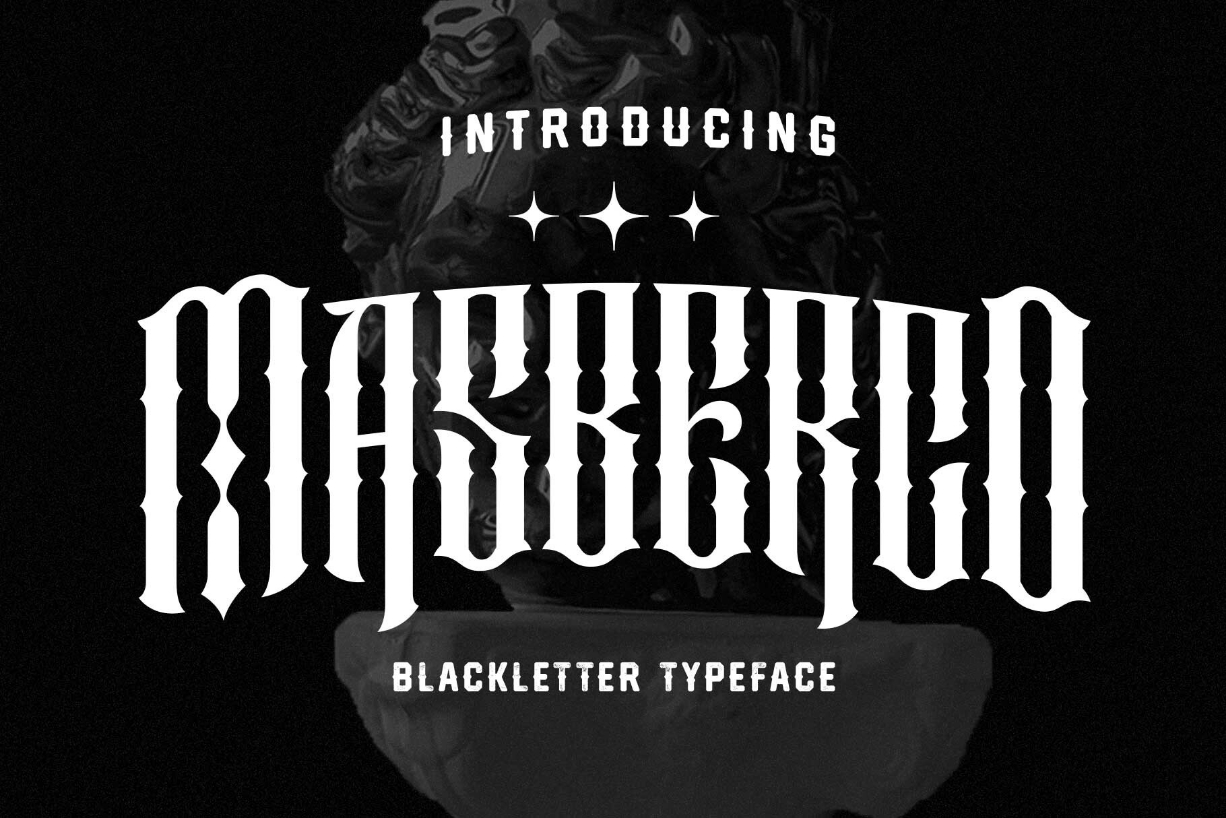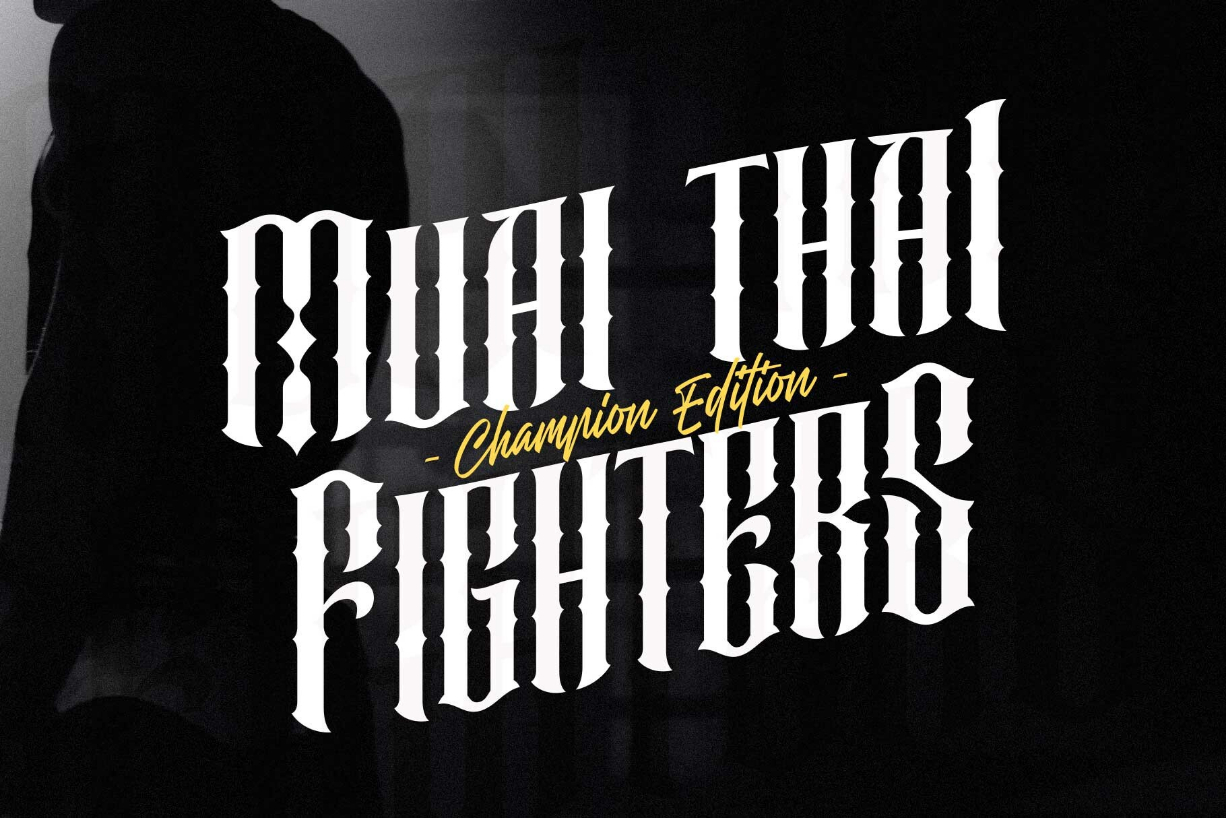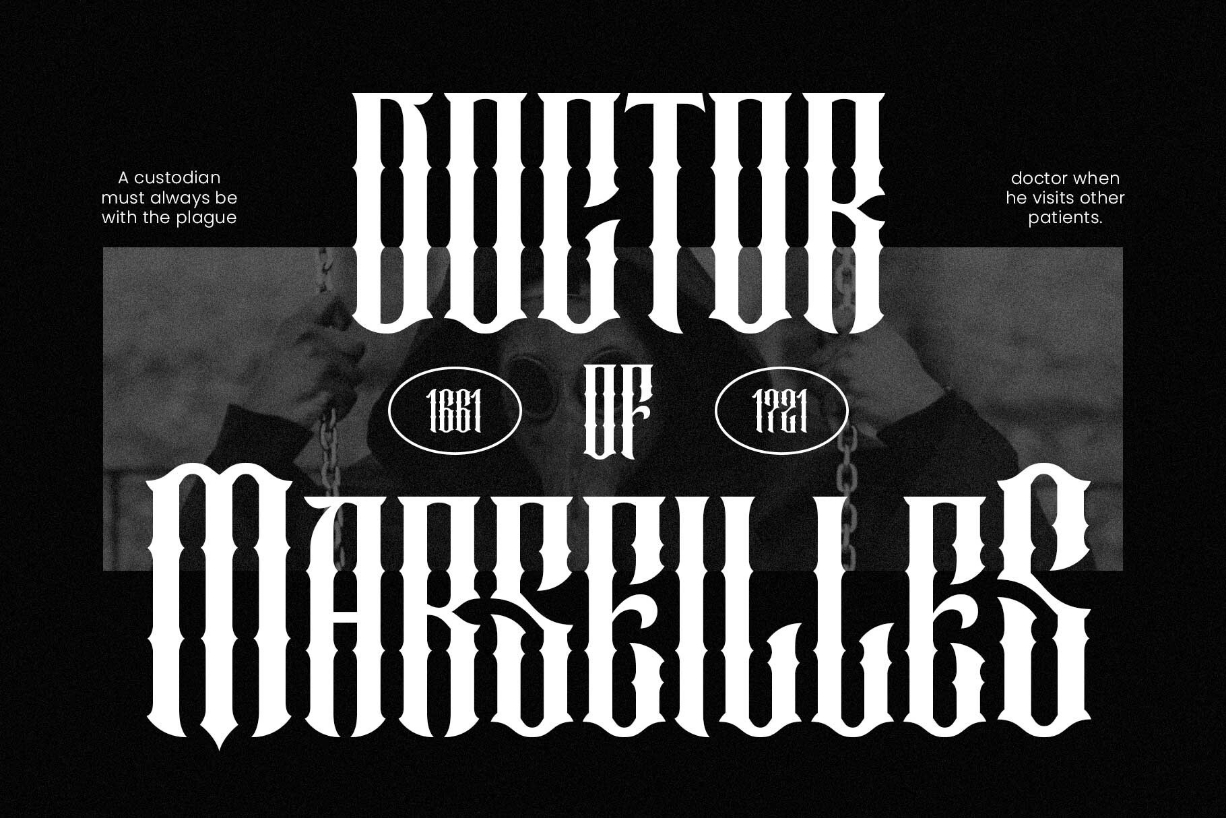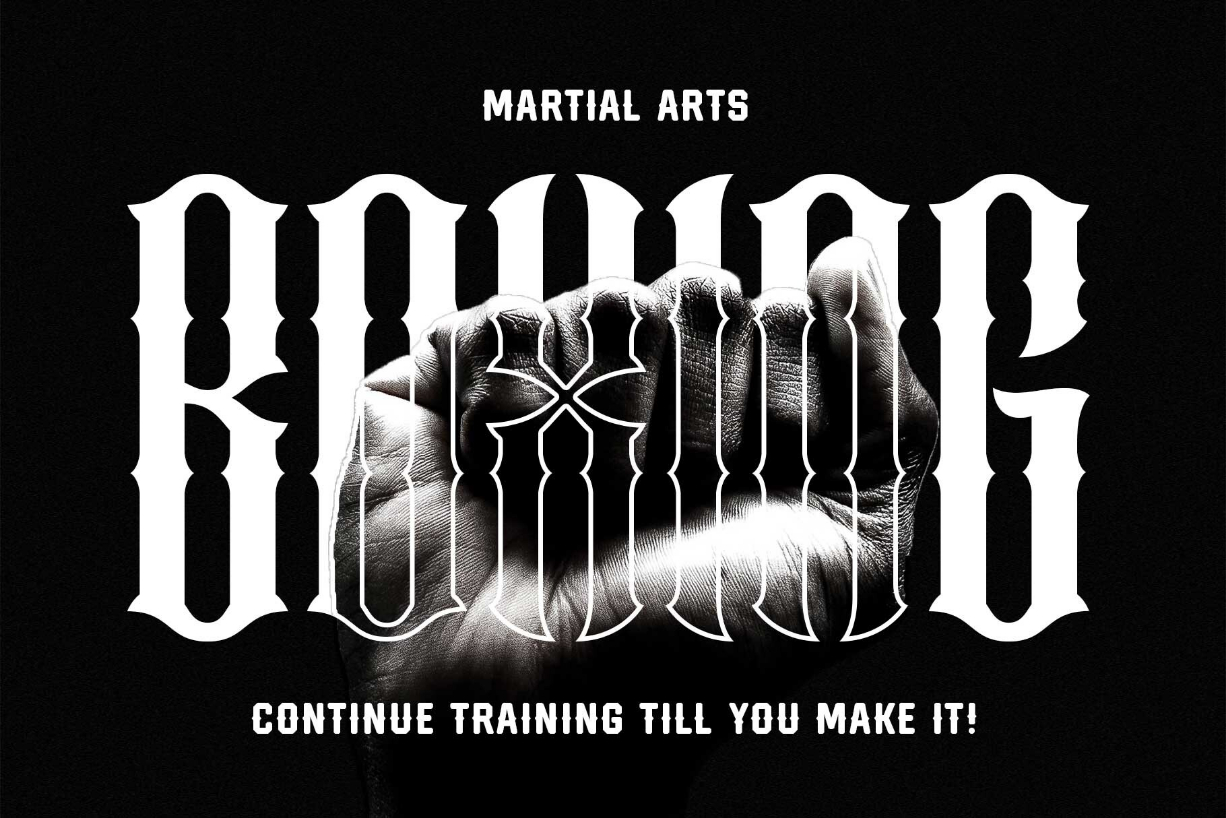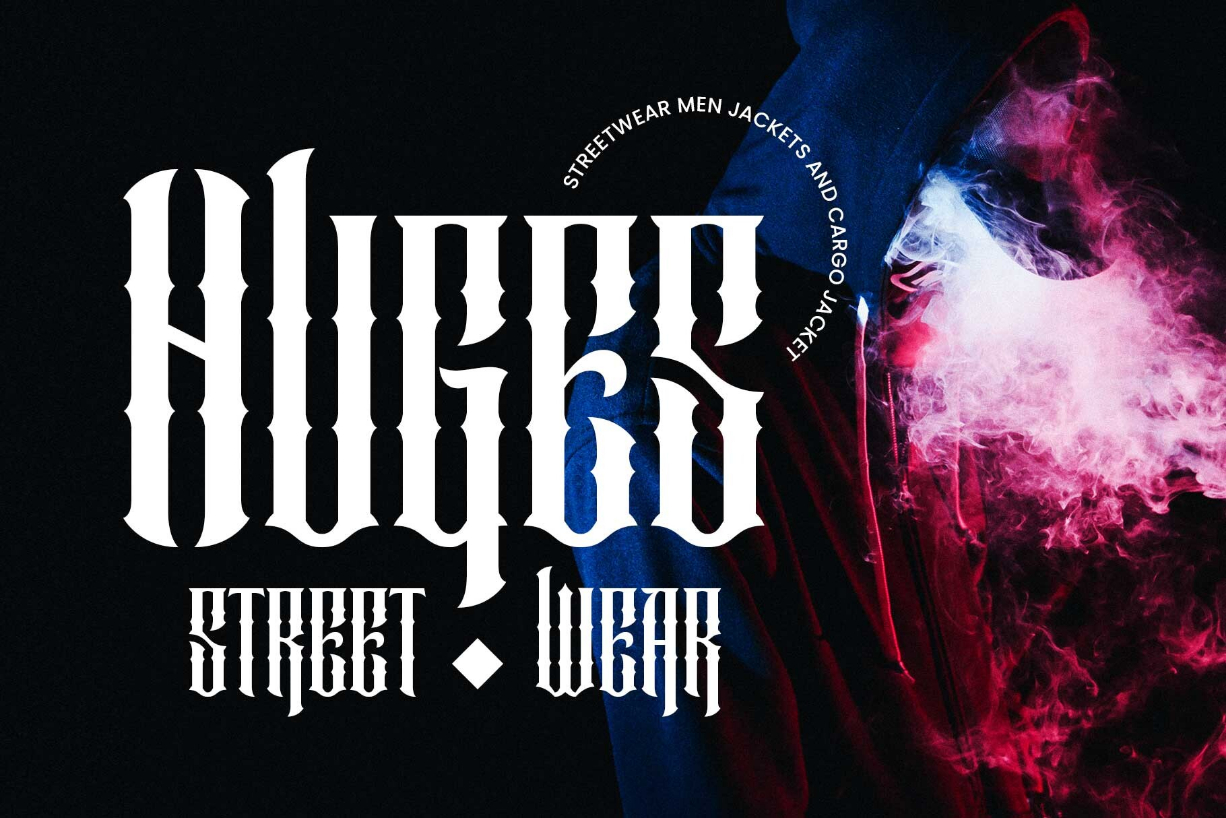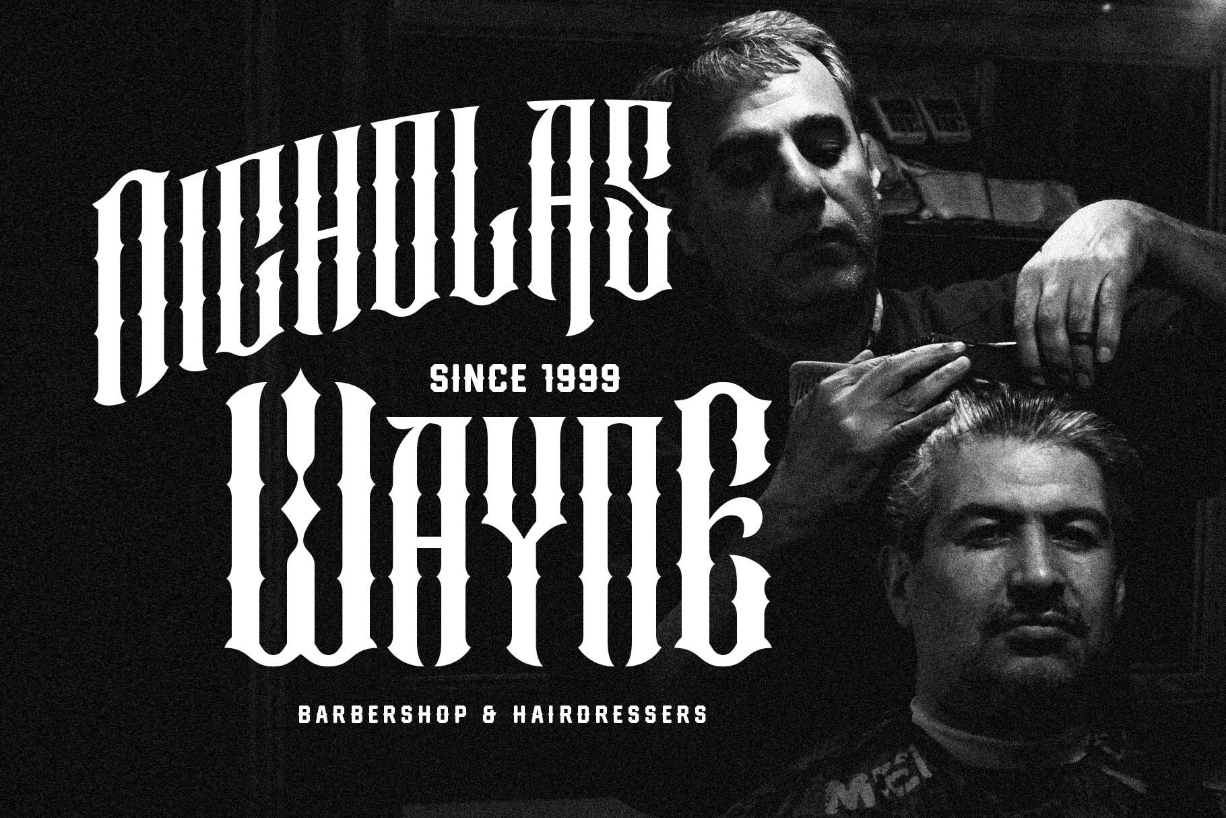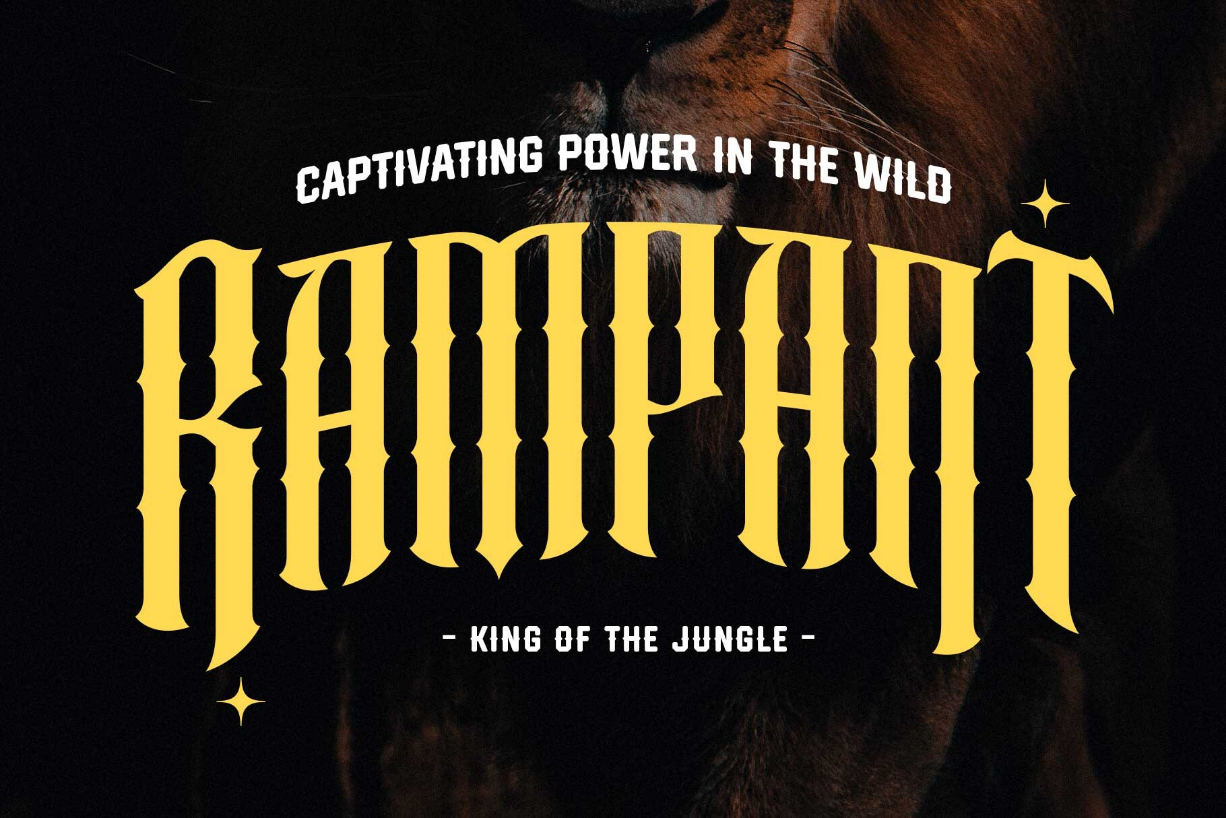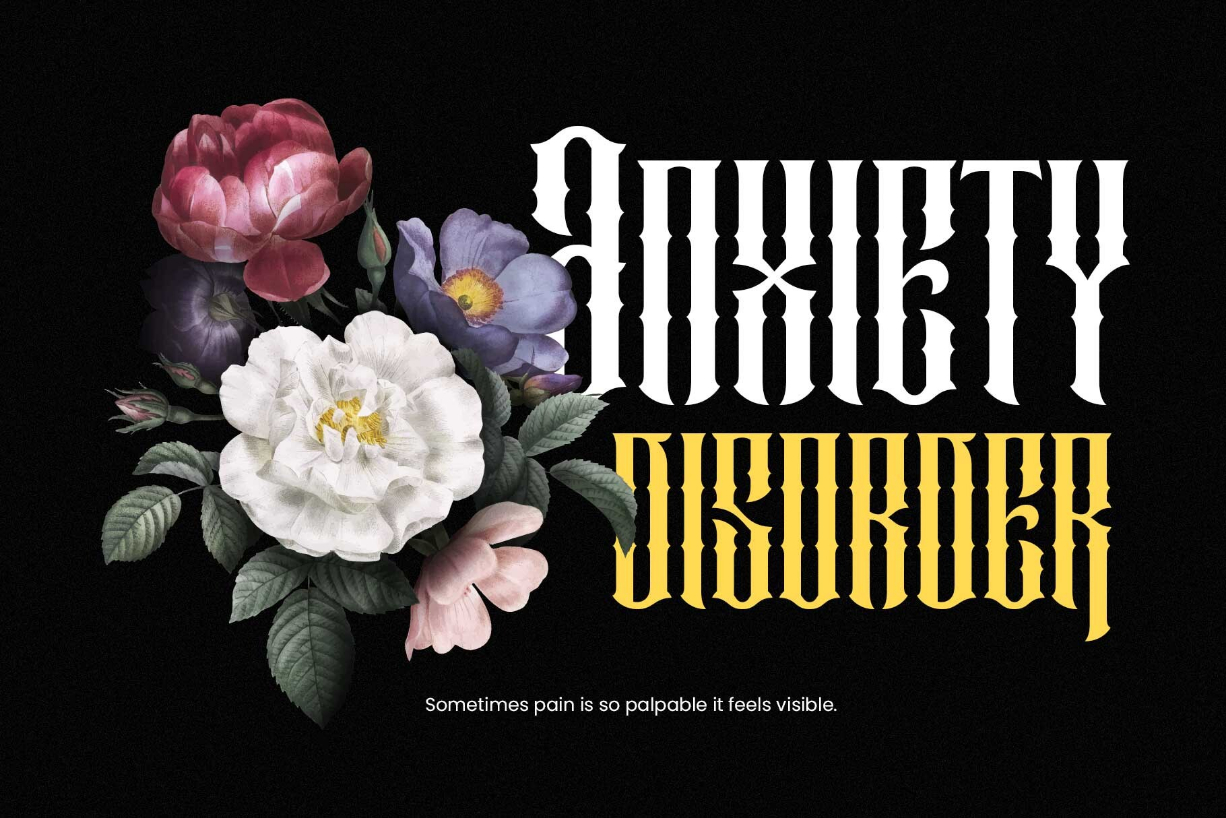
Masberco Font
About Masberco Font
Introducing Masberco, a dark blackletter style seamlessly merging street art and gothic typography. Crafted with meticulous letter spacing, it radiates an elegant yet fierce typographic presence.
Masberco is a standout display font, especially effective in medium to large sizes. It exudes dark vibes, making it an ideal choice for underground styles like posters, flyers, logos, logotypes, branding, book covers, emblems, and more.